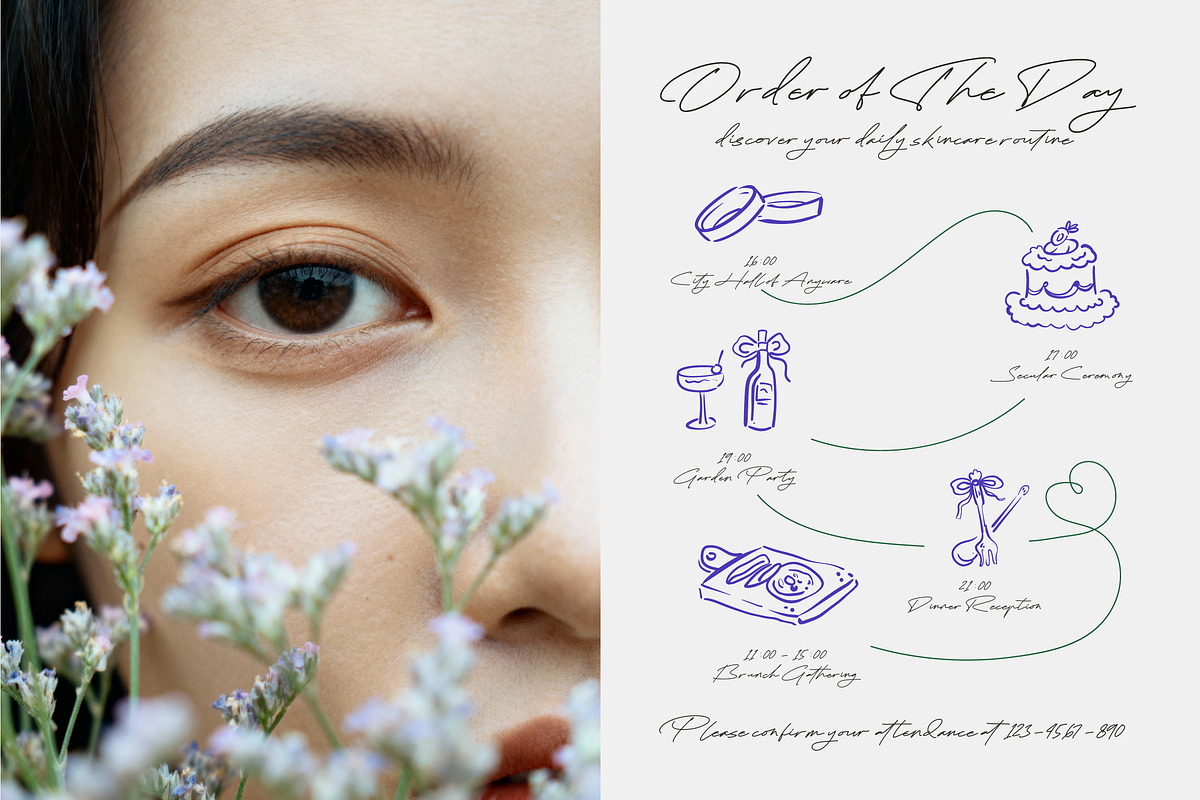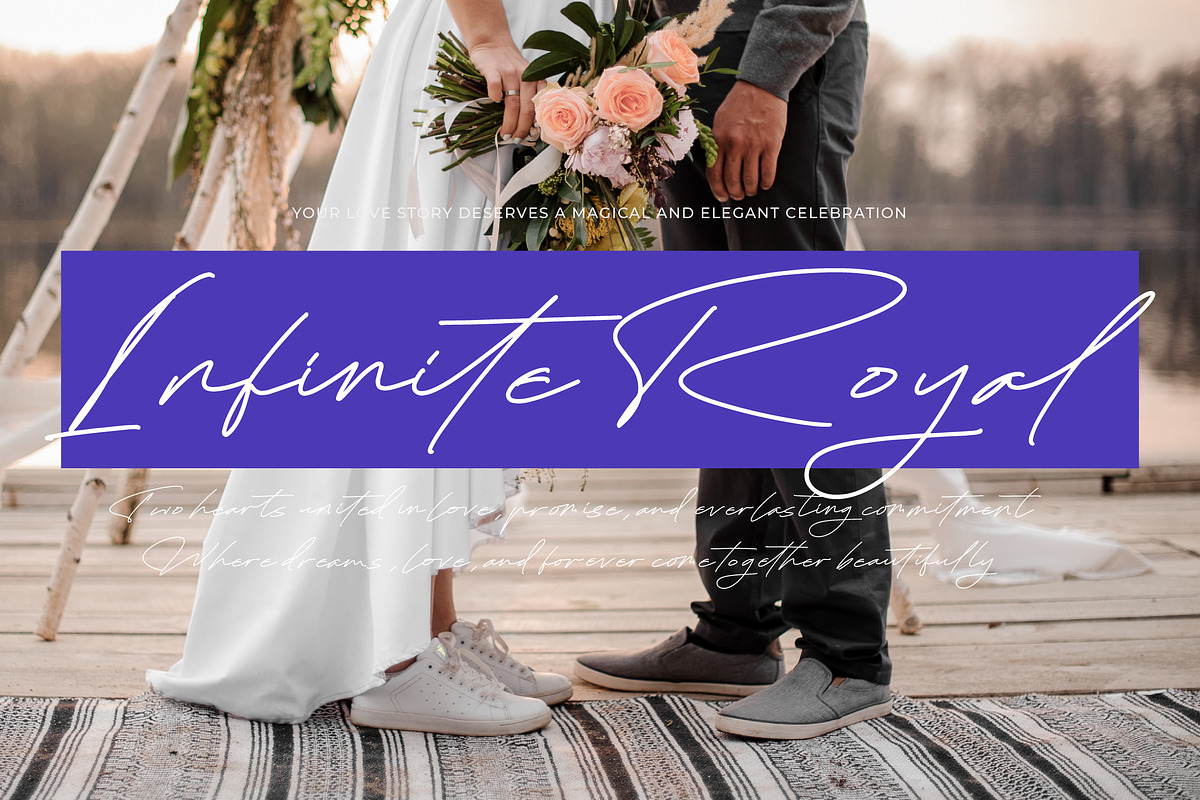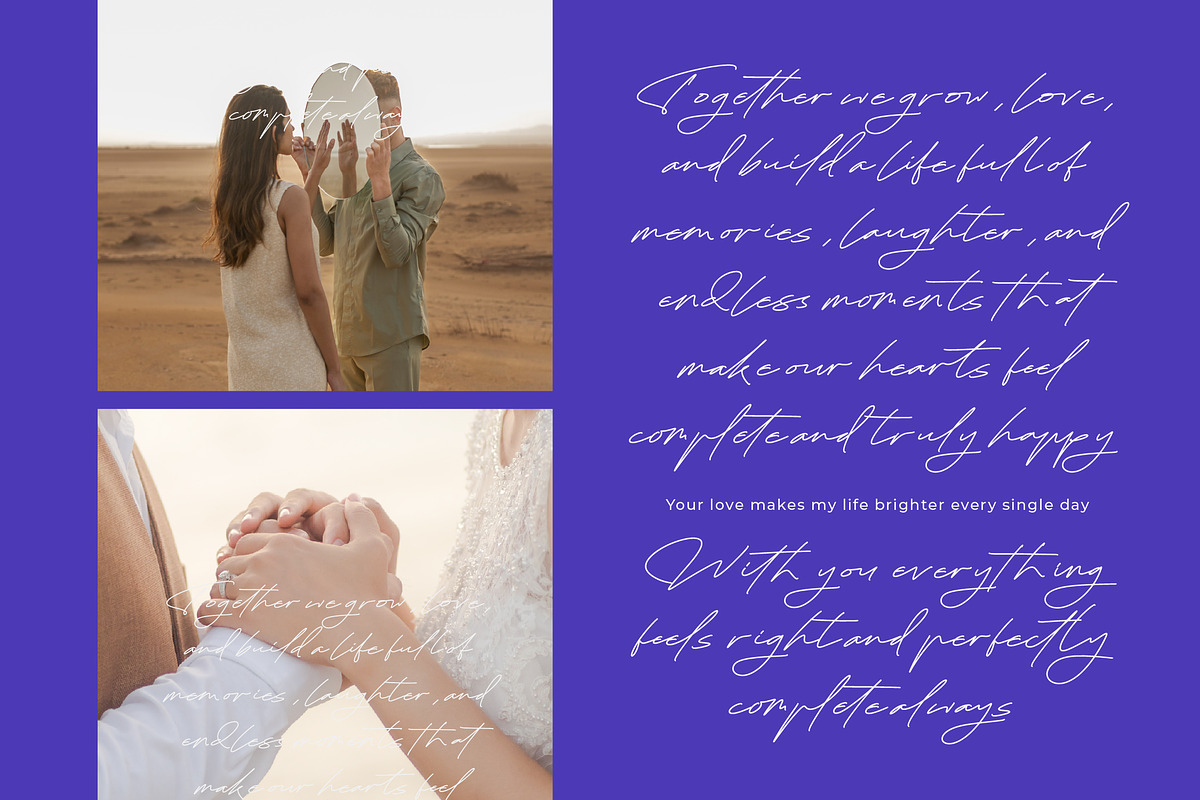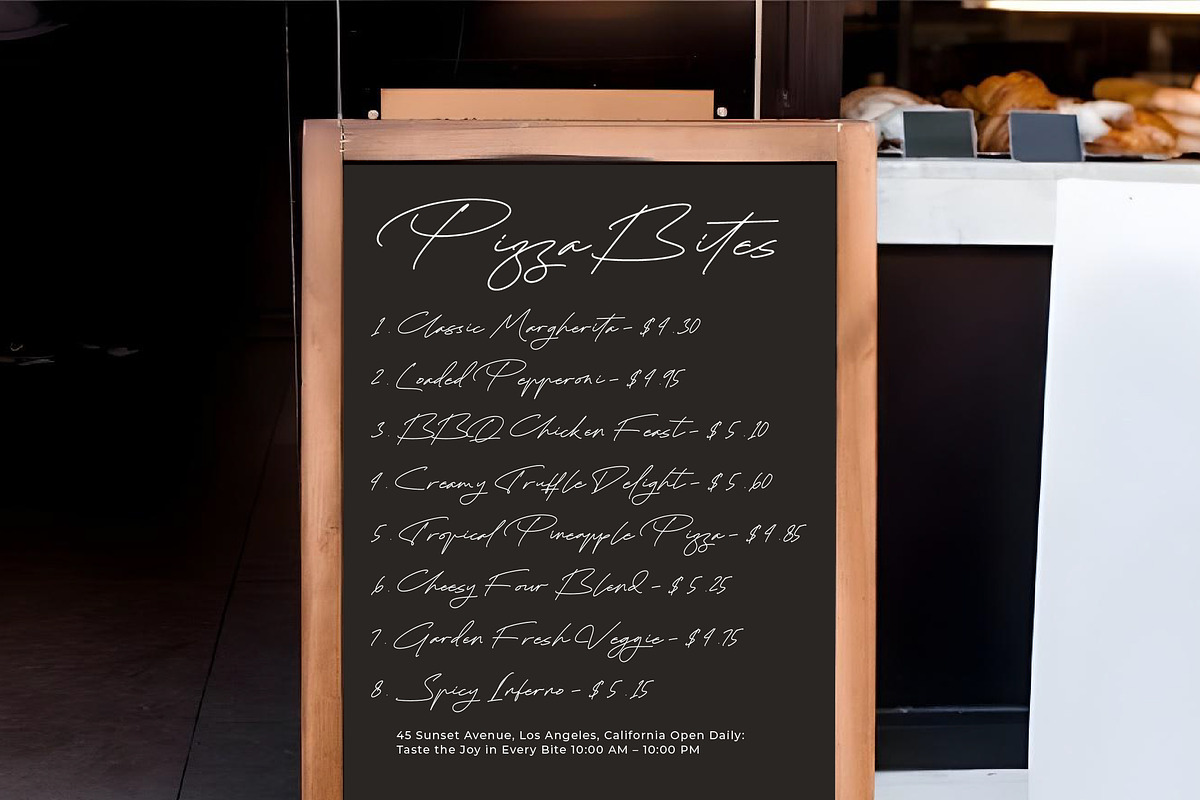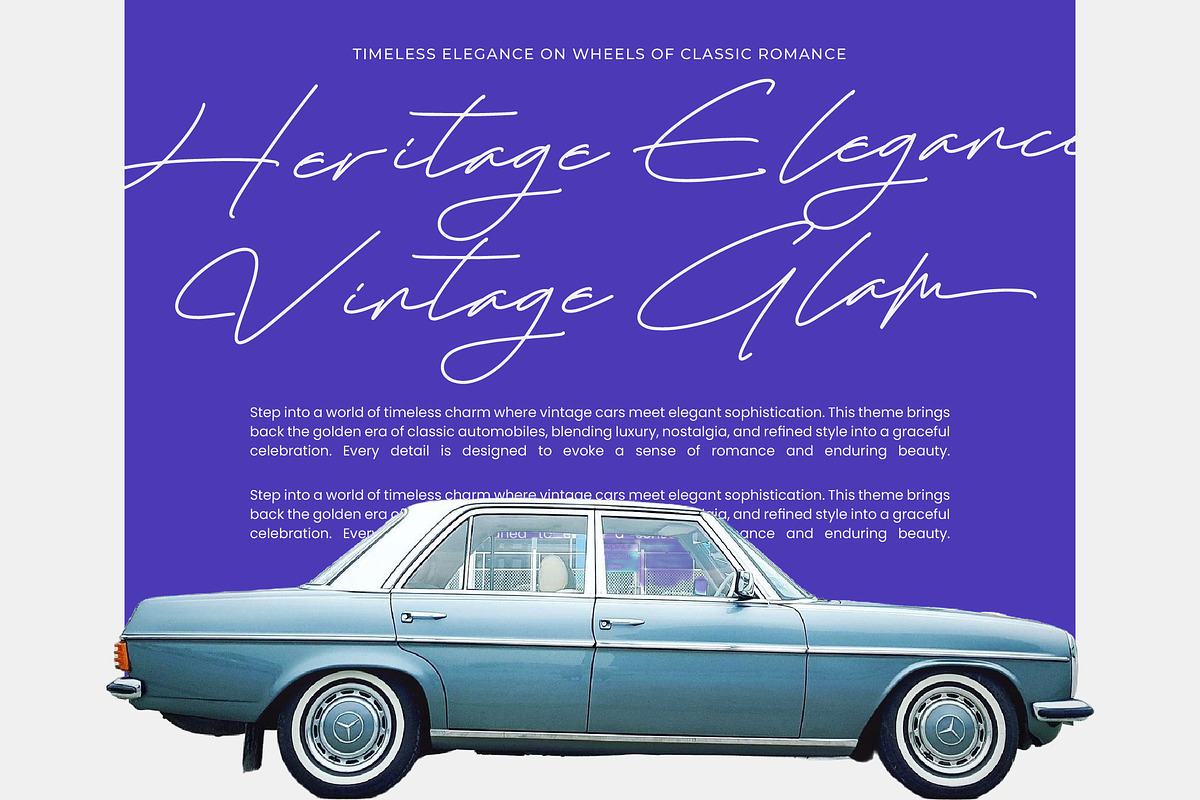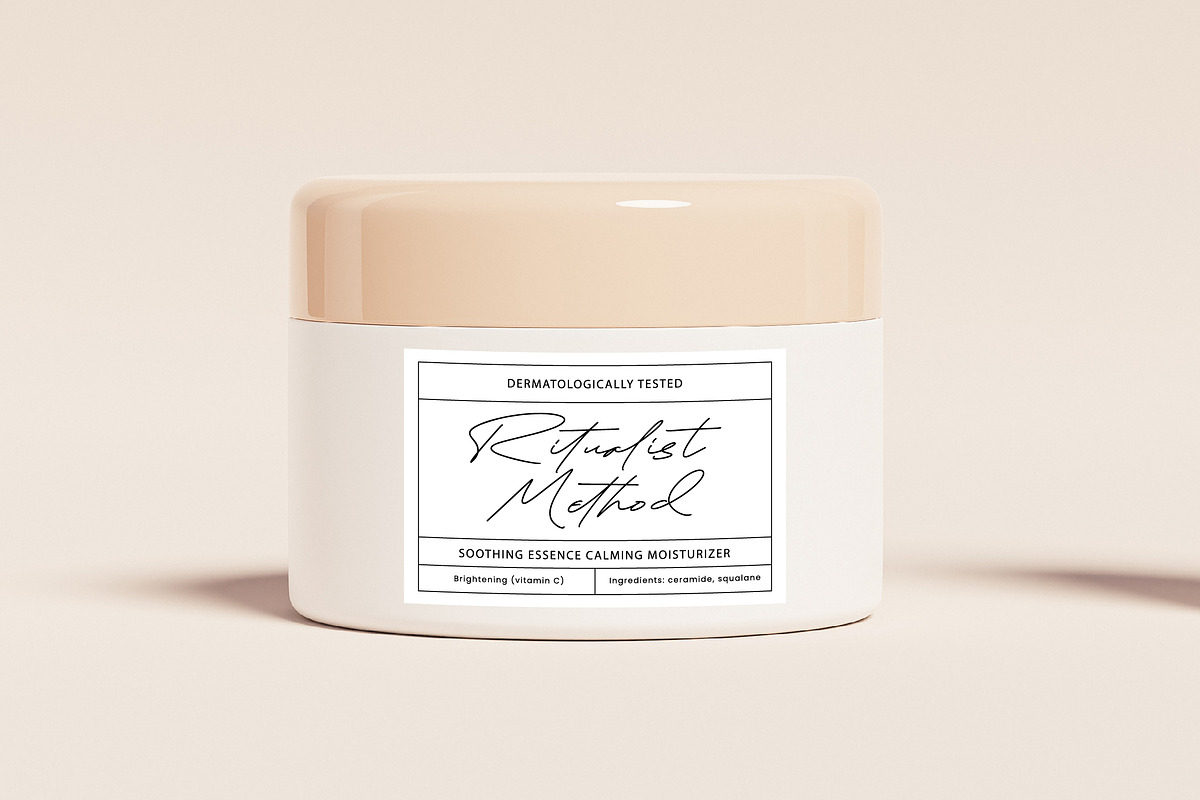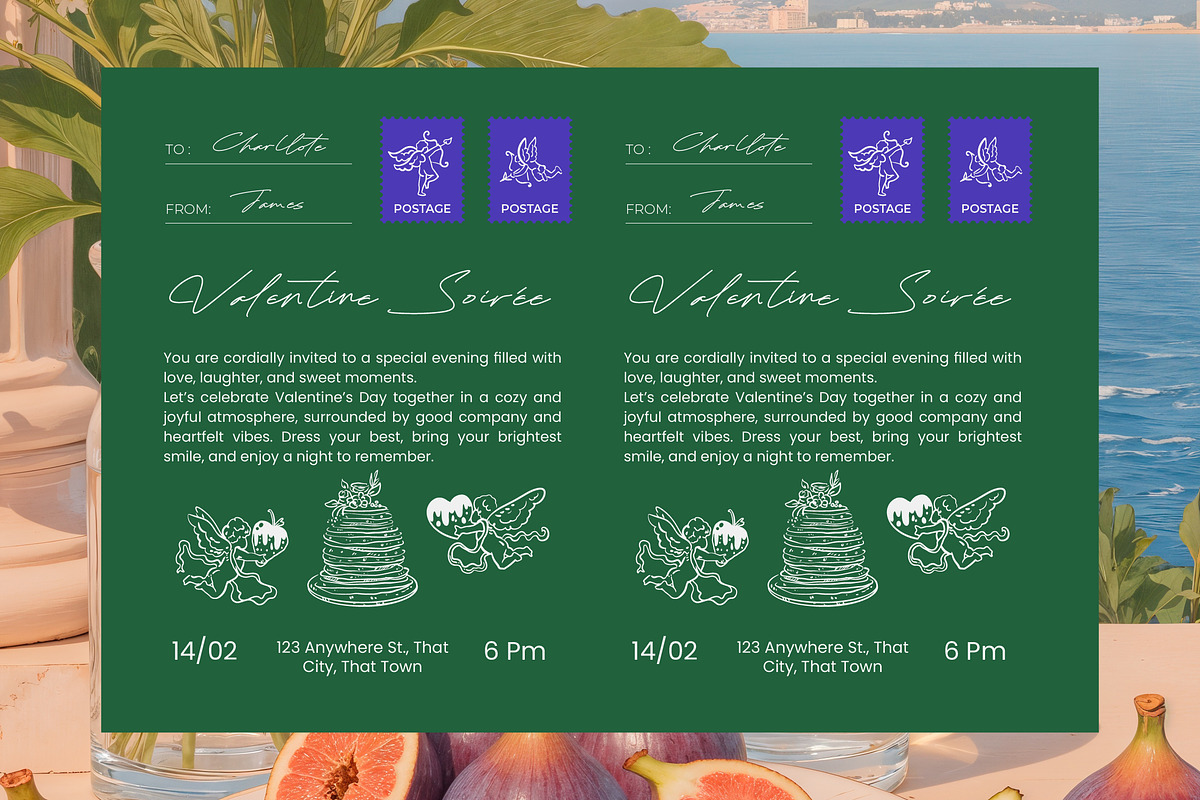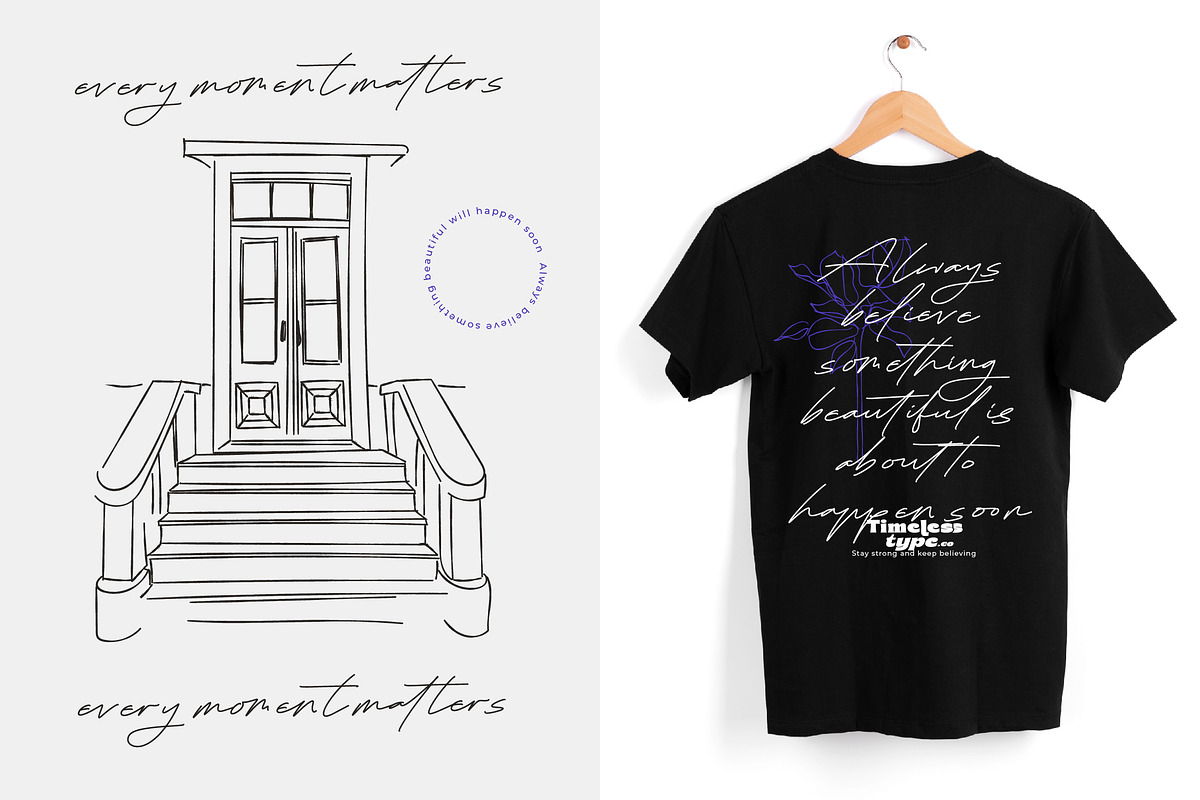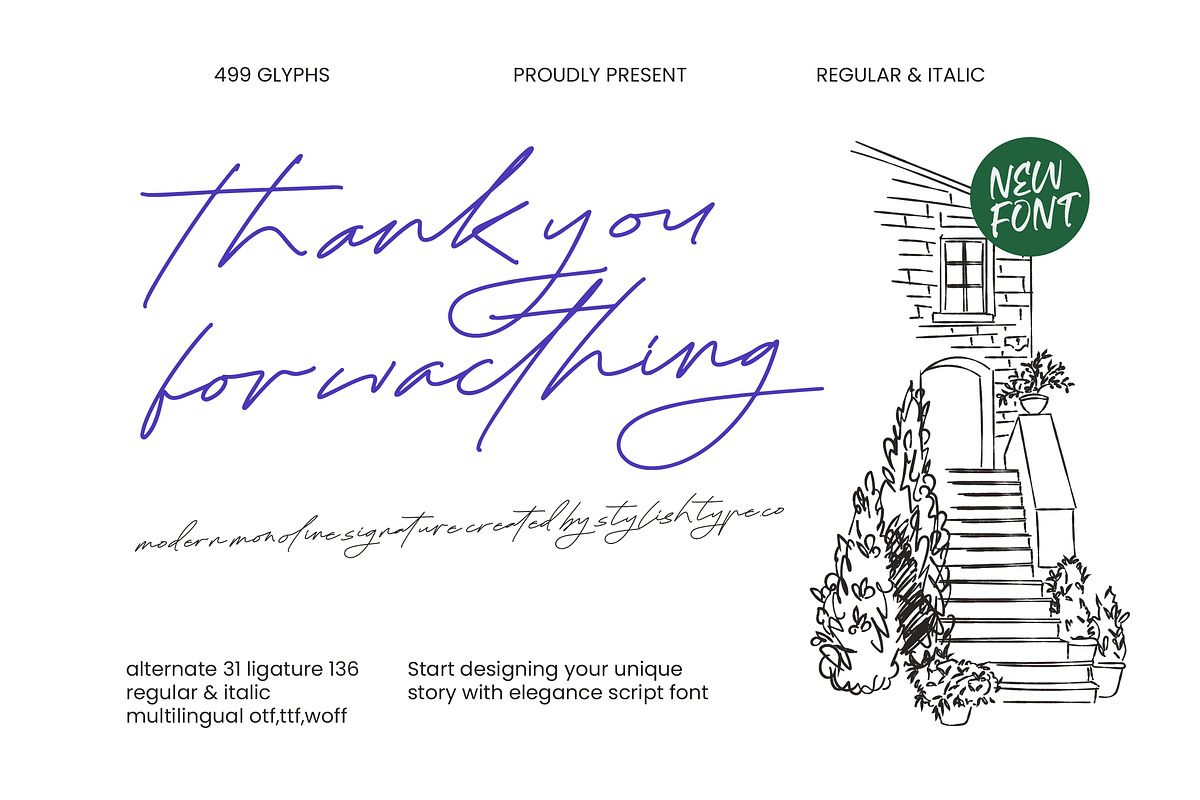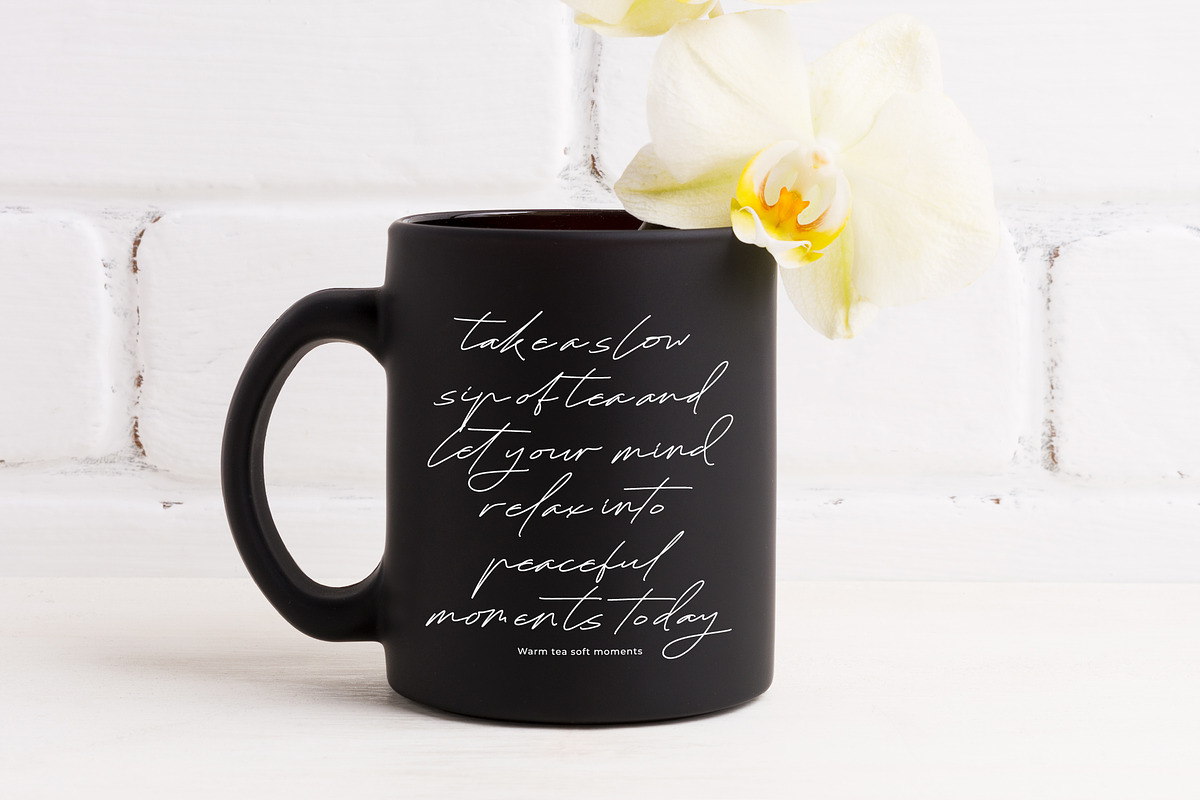
Charlove Rhythm - Signature Font
Charlove Rhythm - Modern Monoline Signature , Elevate your creative vision with the effortless grace of Charlove Rhythm - Modern Monoline Signature. This font embodies a sophisticated aesthetic characterized by its fluid monoline strokes and natural handwriting flow. It strikes a perfect balance between modern minimalism and timeless elegance, offering a high-end feel that instantly elevates any layout. With its precise monolinear weight, Charlove Rhythm - Modern Monoline Signature provides a consistent and clean look that mimics the art of professional calligraphy with a contemporary twist.
Discover the ultimate solution for premium visual identities and luxury branding. This typeface is perfectly suited for high-end packaging, editorial headlines, and exclusive invitation suites. It is particularly effective for professional logos, boutique storefronts, and bespoke stationery where a personal touch is essential. Whether you are designing for fashion houses, cosmetic labels, or lifestyle photography, Charlove Rhythm - Modern Monoline Signature serves as the perfect choice for projects requiring a sense of refined luxury and authentic personality.
Experience unparalleled functionality with a comprehensive suite of advanced typographic features and technical precision. Featuring over 499 meticulously crafted glyphs, including a vast array of ligatures and stylistic alternates, this font ensures every word looks uniquely hand-lettered. With its extensive multilingual support, Charlove Rhythm - Modern Monoline Signature adapts seamlessly across global markets, making it incredibly versatile for international projects. The inclusion of both regular and italic styles allows for dynamic layering and design flexibility across various digital and print mediums.
Transform your design portfolio and captivate your audience with a distinguished signature style that speaks volumes. By choosing Charlove Rhythm - Modern Monoline Signature, you are investing in a versatile design asset that guarantees a polished and professional outcome. Its ability to blend artistic flair with commercial legibility makes it a must-have for designers seeking to leave a lasting impression. Embrace the chic sophistication of Charlove Rhythm - Modern Monoline Signature and let your brand's unique story resonate with modern elegance and unmatched clarity.